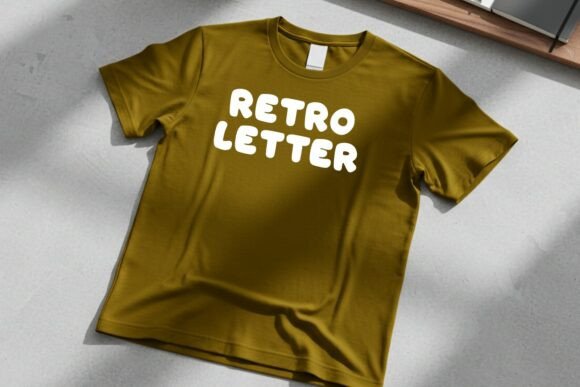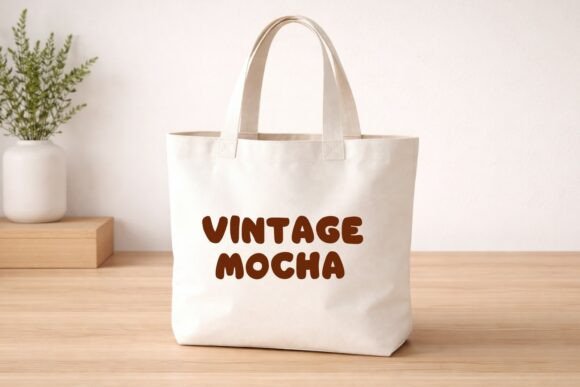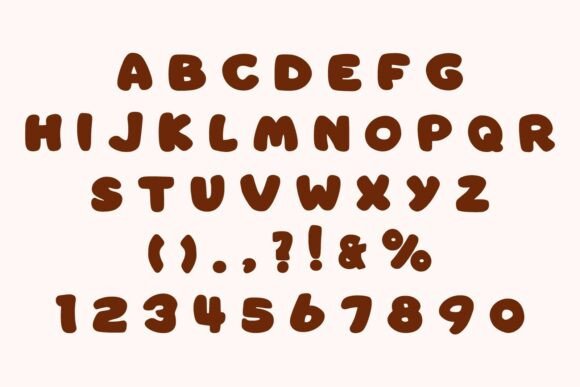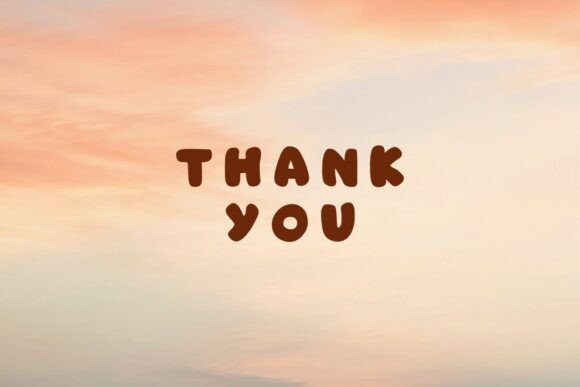
Introduction to Beach Lobster Font
Remember that moment when you’re scrolling through social media and stumble upon a design that instantly captures your attention? For designers, it’s a thrill to come across a high-quality design resource that perfectly complements their creative project. The Beach Lobster Font is one such treasure that’s sure to add a fresh, friendly, and lively touch to your typography.
This fun and playful display font is inspired by the carefree spirit of the beach, evoking sunny summer vibes and relaxed moods. Its bold, rounded shapes make it a perfect fit for kids’ designs, summer projects, logos, posters, invitations, social media graphics, and creative branding.
Key Features of Beach Lobster Font
- Unique, hand-drawn design ideal for creative projects requiring a high-quality, beach-inspired aesthetic.
- Perfect for designers working on beach-themed projects, such as posters, invitations, and branding materials.
Honest Review: Beach Lobster Font
I recently stumbled upon the Beach Lobster Font, and I must say it’s a fantastic addition to any design resource. The font is perfect for a creative project that needs a touch of whimsy and fun.
What works well: ✨ The Beach Lobster Font has a beautiful, hand-drawn feel that’s reminiscent of seaside treasures. It’s ideal for use in illustrations, branding, and other visual projects where a high-quality, unique font is needed. I particularly love the way the font scales up and down without losing its charm.
What doesn’t work as well: ⚠️ While the Beach Lobster Font is a great resource, it’s not suitable for use in situations where a more formal or professional tone is required. The font’s playful nature may clash with the tone of a project that needs to convey a more serious message.
- Perfect for: illustrations, branding, and visual projects
- Not suitable for: formal or professional projects
Tips for Getting the Most Out of Beach Lobster Font
For the best results, pair the Beach Lobster Font with a simple design and a high-quality image. Experiment with different font sizes and colors to create visual interest. Don’t forget to save your design as a transparent PNG file to ensure a seamless look.
The Beach Lobster Font is ideal for creative projects such as invitations, social media graphics, and branding materials. Its playful and elegant design makes it perfect for beach-themed or nautical-inspired projects. With its transparent background, you can easily combine it with other design elements to create a unique and eye-catching visual identity.